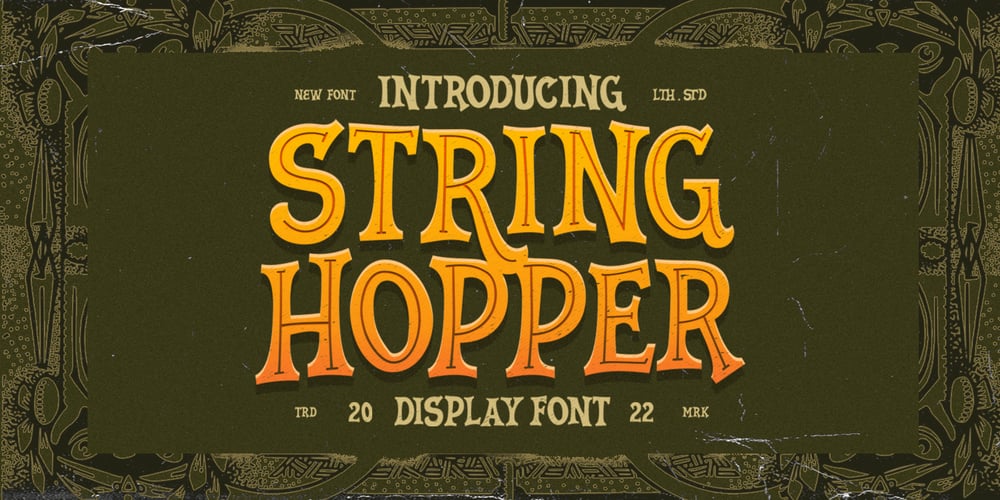
String Hopper
String Hopper font
String Hopper Font Family was designed by Hendry Juanda and published by Letterhend. String Hopper contains 2 styles and family package options. String Hopper is a unique serif typeface font with bold and vintage feel. This font has unique shape, very suitable for horror, thriller and spooky yet fun theme design. This font also perfectly made to be applied especially in logo, and the other various formal forms such as invitations, labels, logos, magazines, books, novels, labels or any type of advertising purpose.Features : altermate and ligatures numbers and punctuation multilingual PUA encoded We highly recommend using a program that supports OpenType features and Glyphs panels like many of Adobe apps and Corel Draw, so you can see and access all Glyph variations.